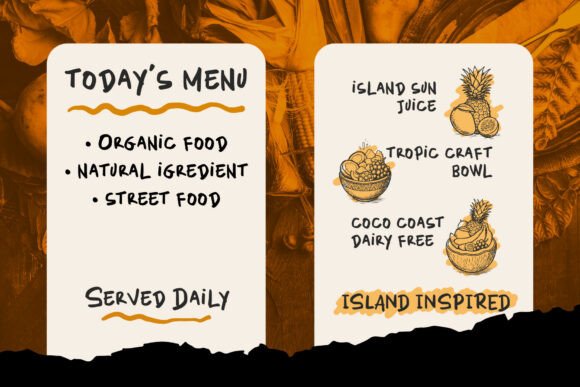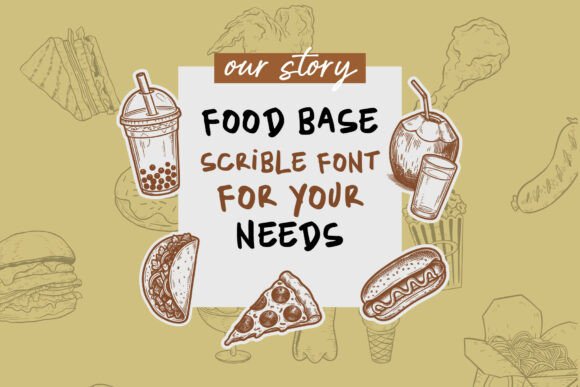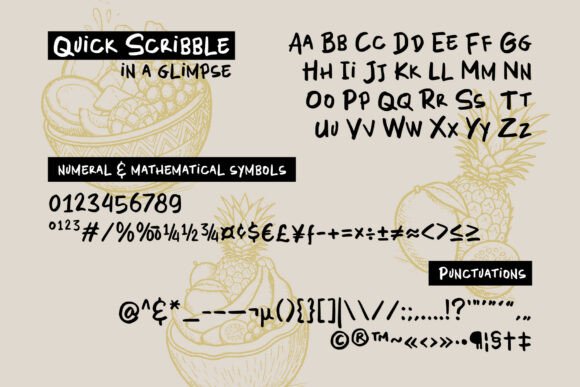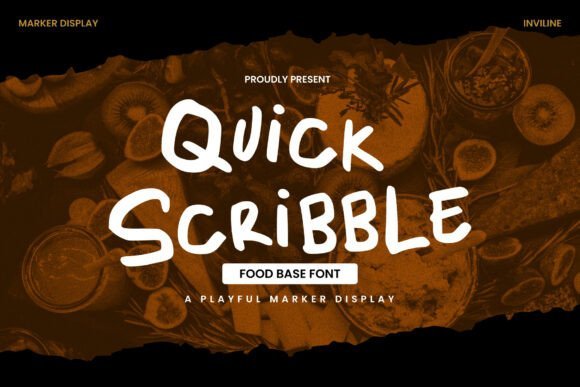
Introduction to Quick Scribble Font
Dispensing a healthy serving of character, Quick Scribble is a captivating marker display typeface nourished by the energetic ebullience of lively food scenes.
Its harmonious blend of the kinetic charm from street food vendors, the countryside charisma of hand-drawn café chalkboards, and the casual aura of laid-back restaurant menus, confers an attractive and unique appeal Quick Scribble dishes out handcrafted lettering, radiating warmth and amplifying visual charm, regardless of scale, to whet aesthetic appetites for a gastronomic journey.
Key Features of Quick Scribble Font